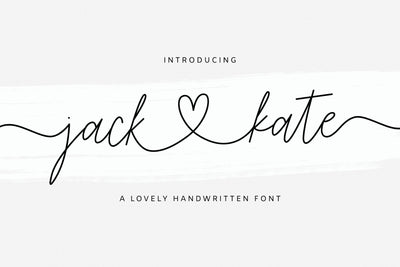
Jack and Kate - Lovely Font
Use the following combos:
lowercase beginning swash
type: -a (hyphen lowercase letter)
For example: -hellen -angela -park
lowercase ending swash
type: a- (lowercase letter hyphen)
For example: hellen- angela- park-
Letter with connecting heart
type: a_a ( lowercase letter underscore lowercase letter)
For example: k_l c_m
Jack & Kate is a modern calligraphy font with monoline style, feminine, and hearts glyphs. It is perfect for branding, wedding lettering, book covers, magazines, logo, marketing, cards, and more.
Jack & Kate features standard characters, ligatures, and multilingual support. Also includes lowercase beginning and ending swashes; lowercase connecting heart swashes.